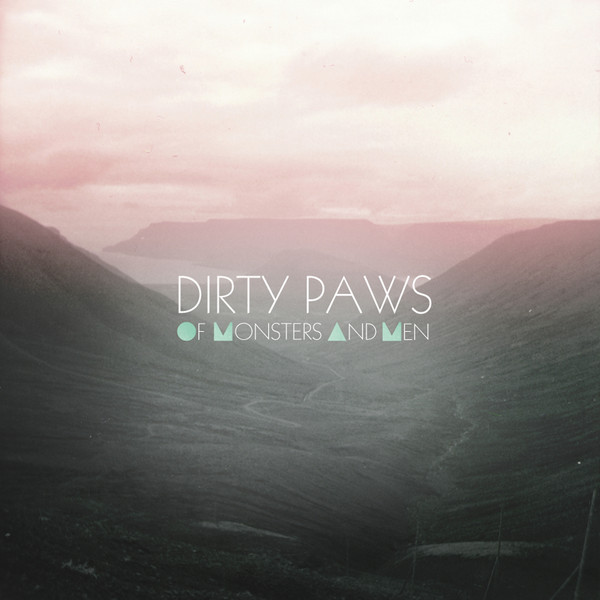
Dirty Paws Font
BandDirty Paws is a single by Icelandic indie folk band Of Monsters and Men, released in 2012. It is known for its catchy melody and whimsical lyrics about creatures in a fantastical world.
The text on the cover art most likely uses Kabel Light, a sans-serif font created by Rudolf Koch, a German typeface designer, and published by Klingspor foundry in 1927. Additional information on this font is available here.